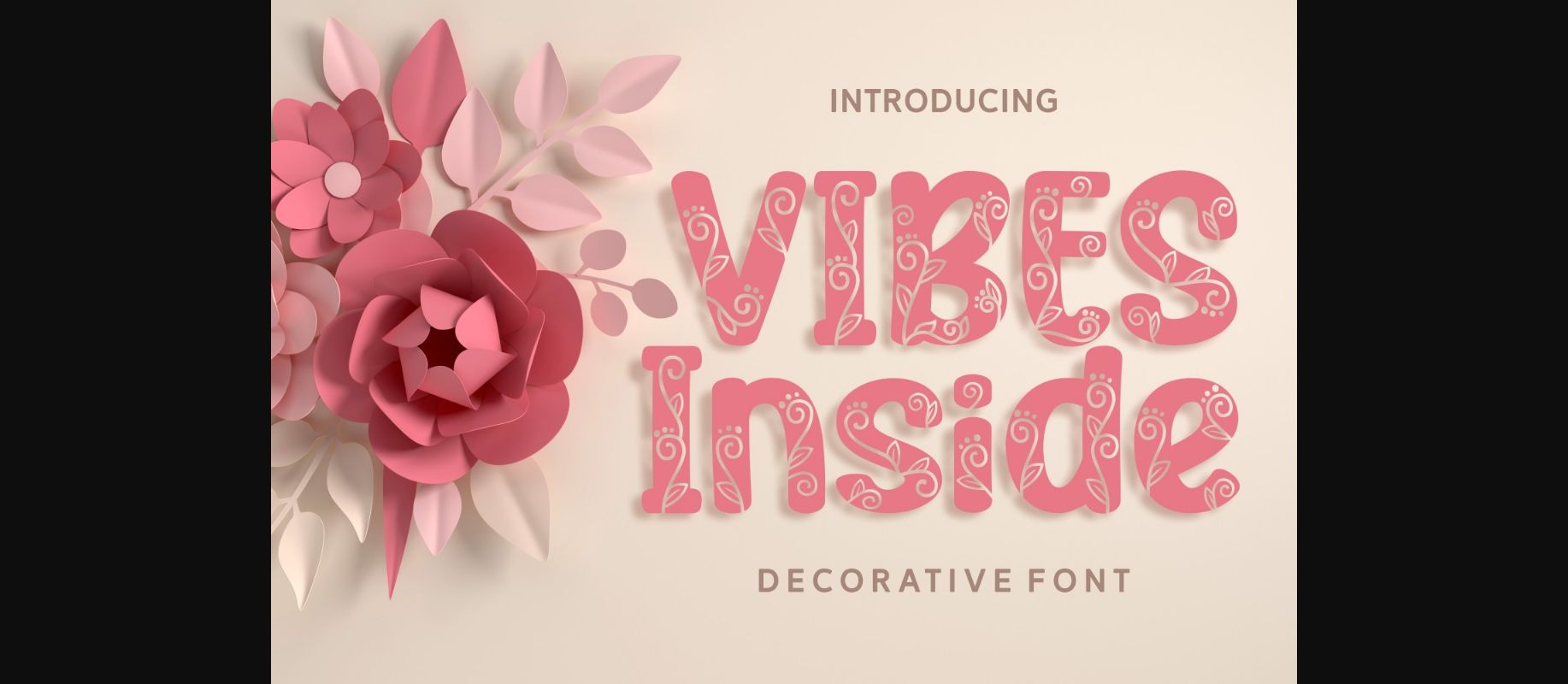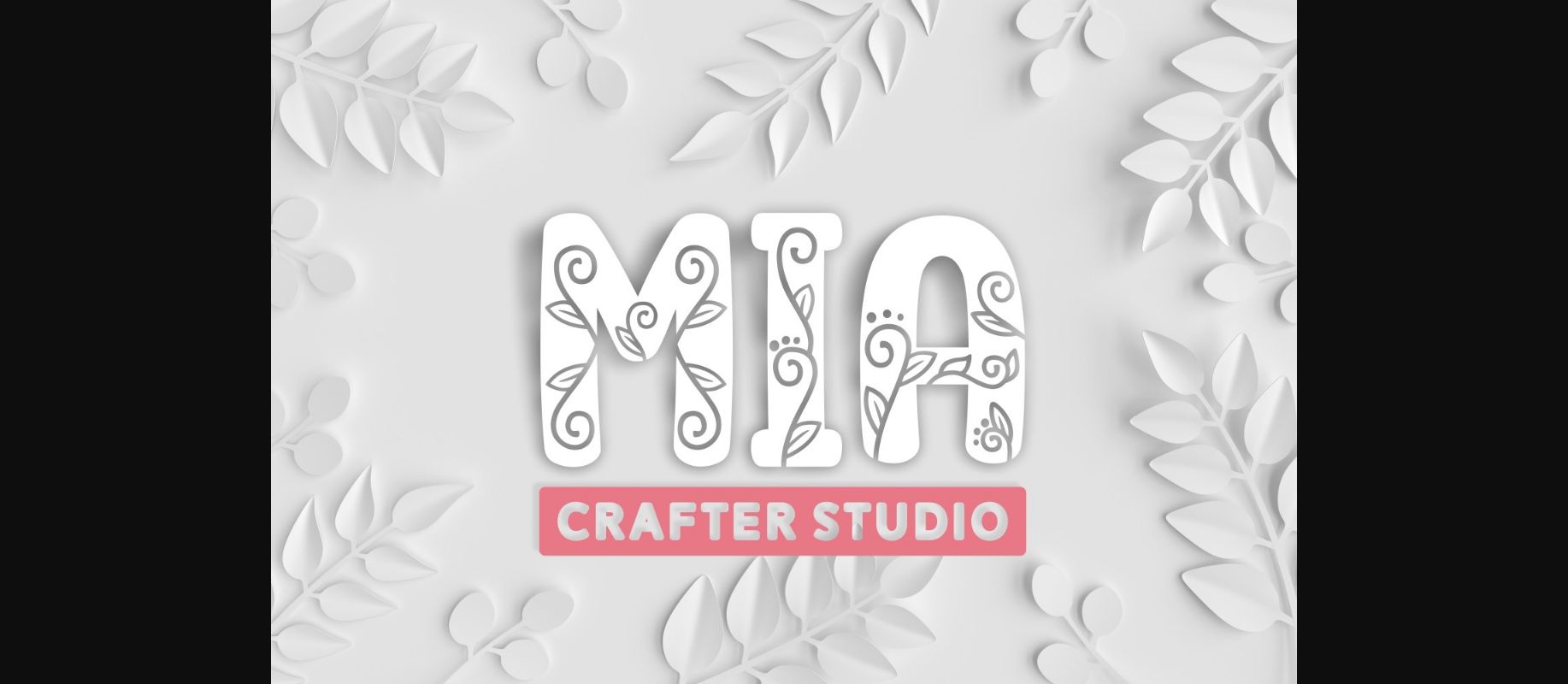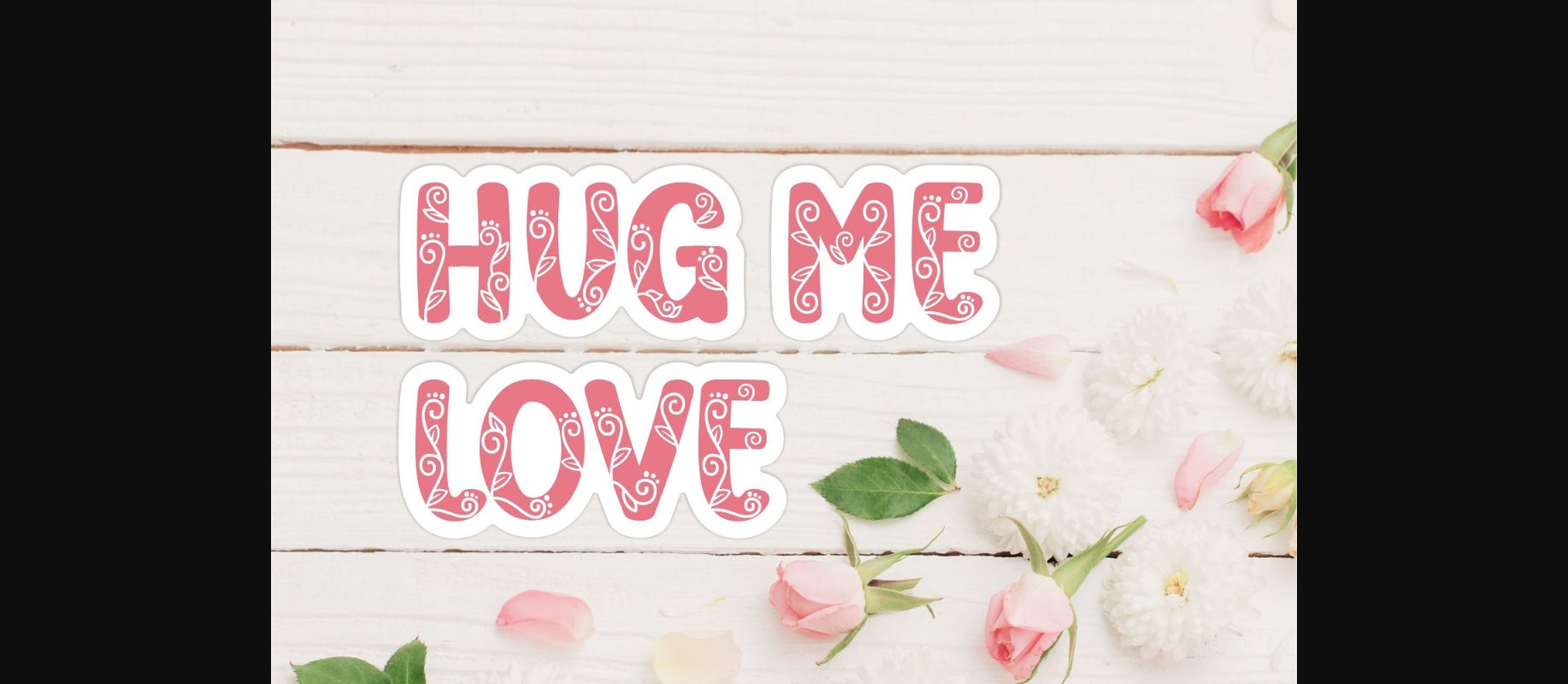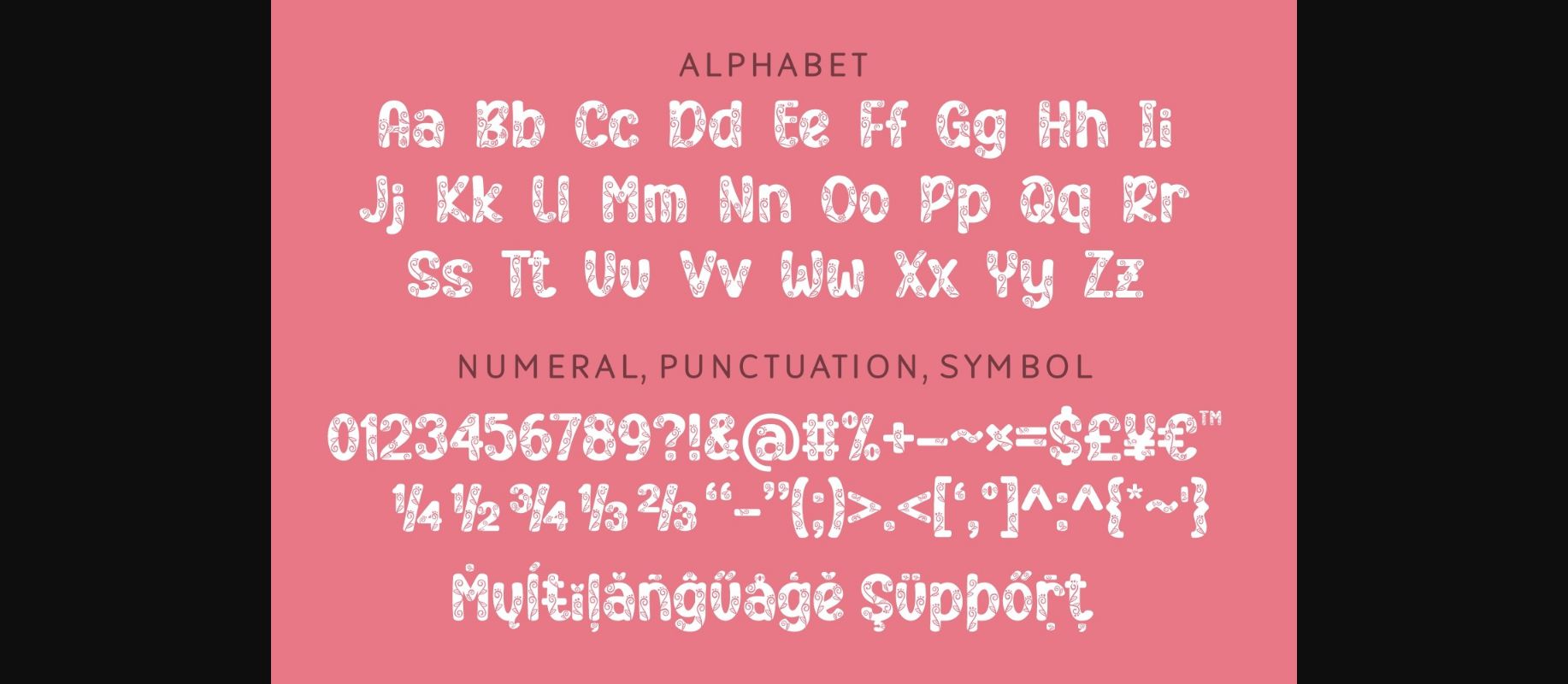
HomeDecorative FontsVibes Inside Font Decorative Fonts Vibes Inside Font FacebookXPinterestWhatsApp 1 of 6 ... Vibes Inside Font Poster 2... Vibes Inside Font Poster 3... Vibes Inside Font Poster 4... Vibes Inside Font Poster 5... Vibes Inside Font Poster 6... About Vibes Inside Font Vibes Inside is the perfect font for the crafter. Each character has a beautiful floral swirly pattern, that brings a warm feeling to your projects. Perfect to use for Valentine’s Day and Mother’s Day crafts. DOWNLOAD NOW People also explored Salvatrice Light Font Fairy Font Happy Queen Font Whakatani Font Salve Regular Misterall Chapter Eight Font Neropark Font Baroque Text 469 0 TagsVibes Inside Font Previous articleWhy FontNext articleSnow Game Font LEAVE A REPLY Cancel reply Comment: Please enter your comment! Name:* Please enter your name here Email:* You have entered an incorrect email address! Please enter your email address here Website: Save my name, email, and website in this browser for the next time I comment. Personal Use Free Burnstown Dam Personal Use Free Read more about this font Castina Personal Use Free Read more about this font Numberpile Personal Use Free Read more about this font Engine Personal Use Free Read more about this font BLOG Free Fonts Risk: Why Free Fonts Can Be Dangerous for Designers Free Fonts Risk: Why Free Fonts Can Be Dangerous for Designers Using free fonts is a common practice in web and graphic design. However, the... Fonts That Capture the Spirit of New York City Transform Your Website: Elevate Your Typography with 7 Best Web Font Generators Using Fonts in Digital Marketing: Tips to Strengthen Your Brand Identity